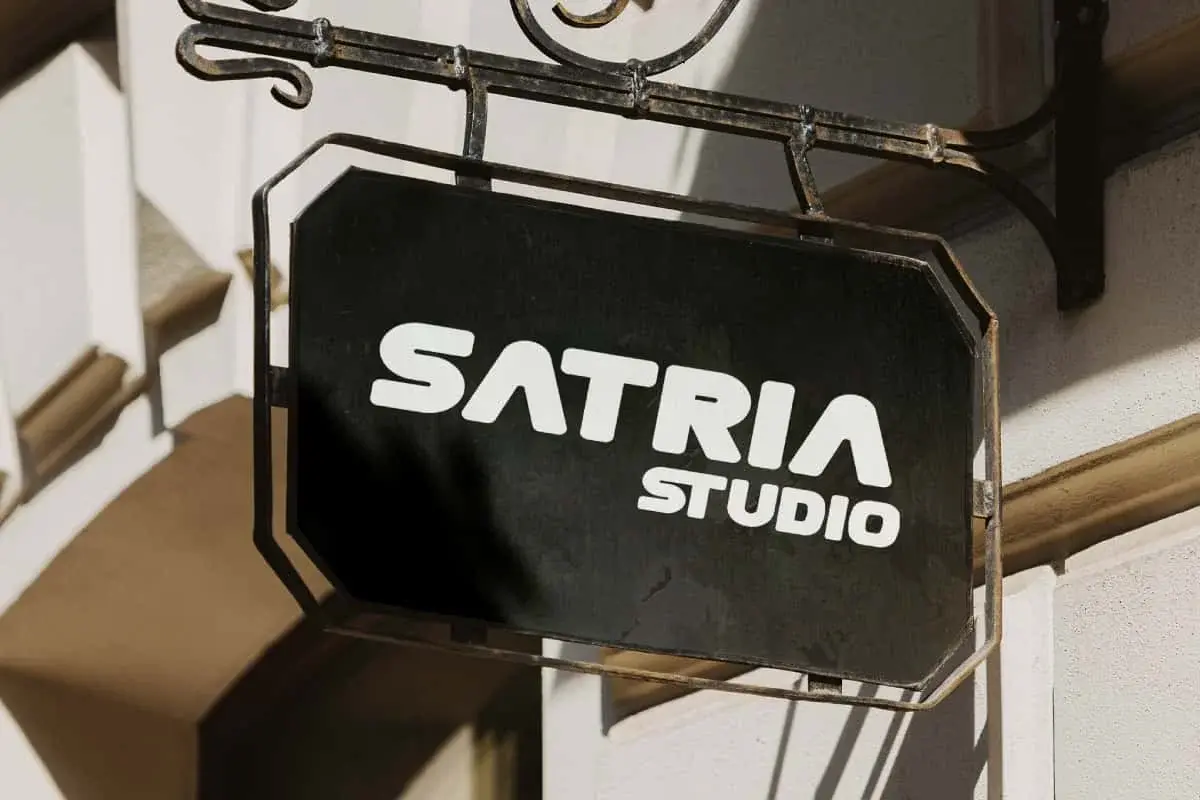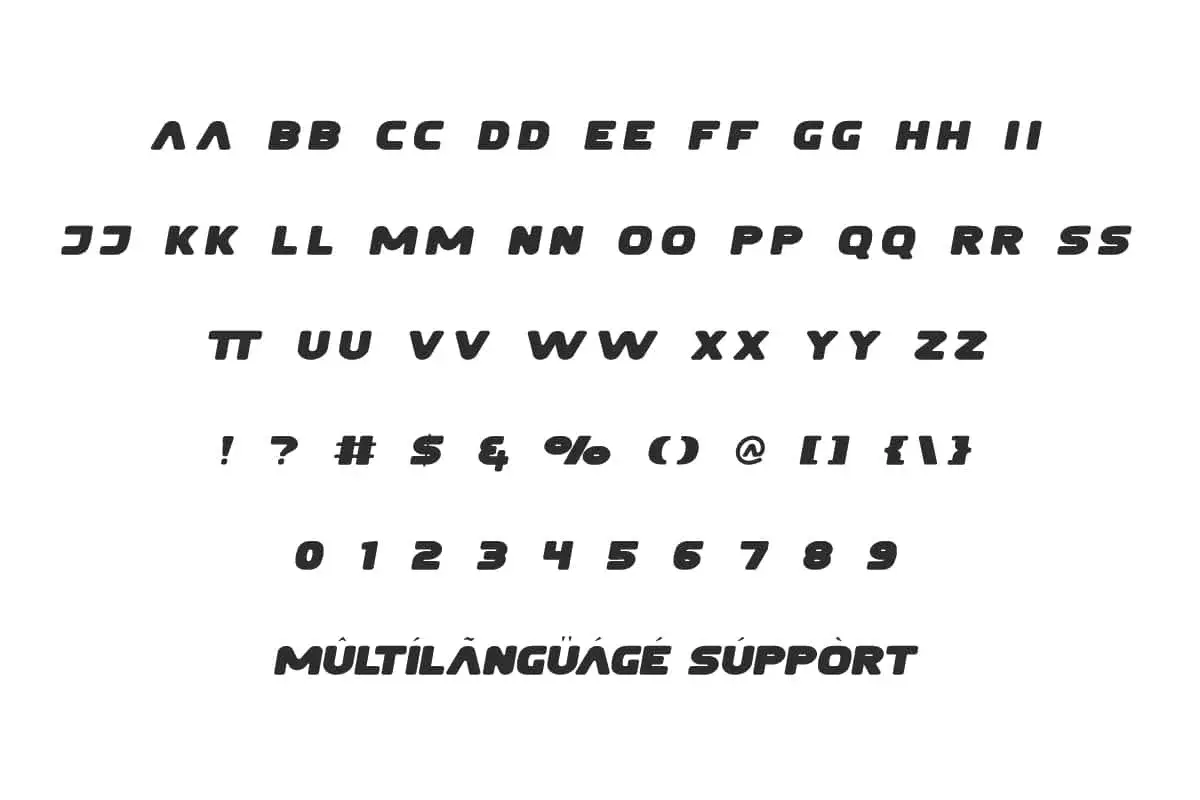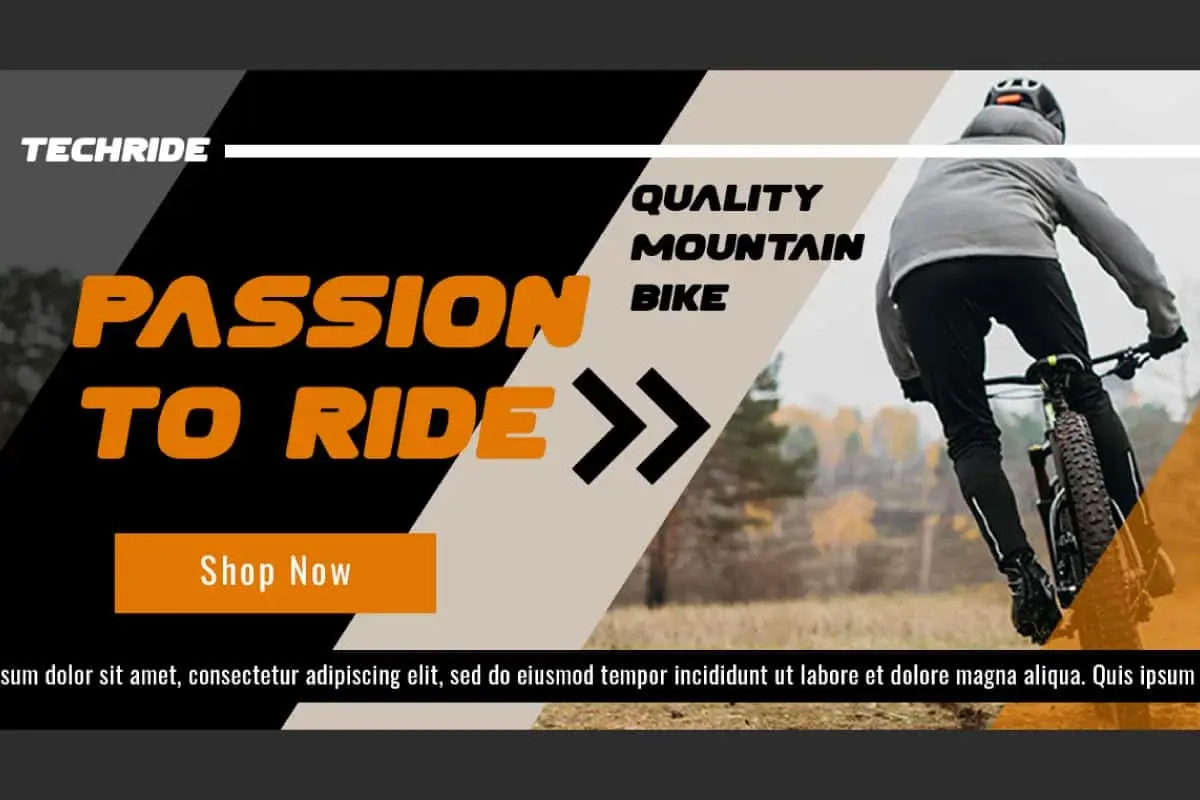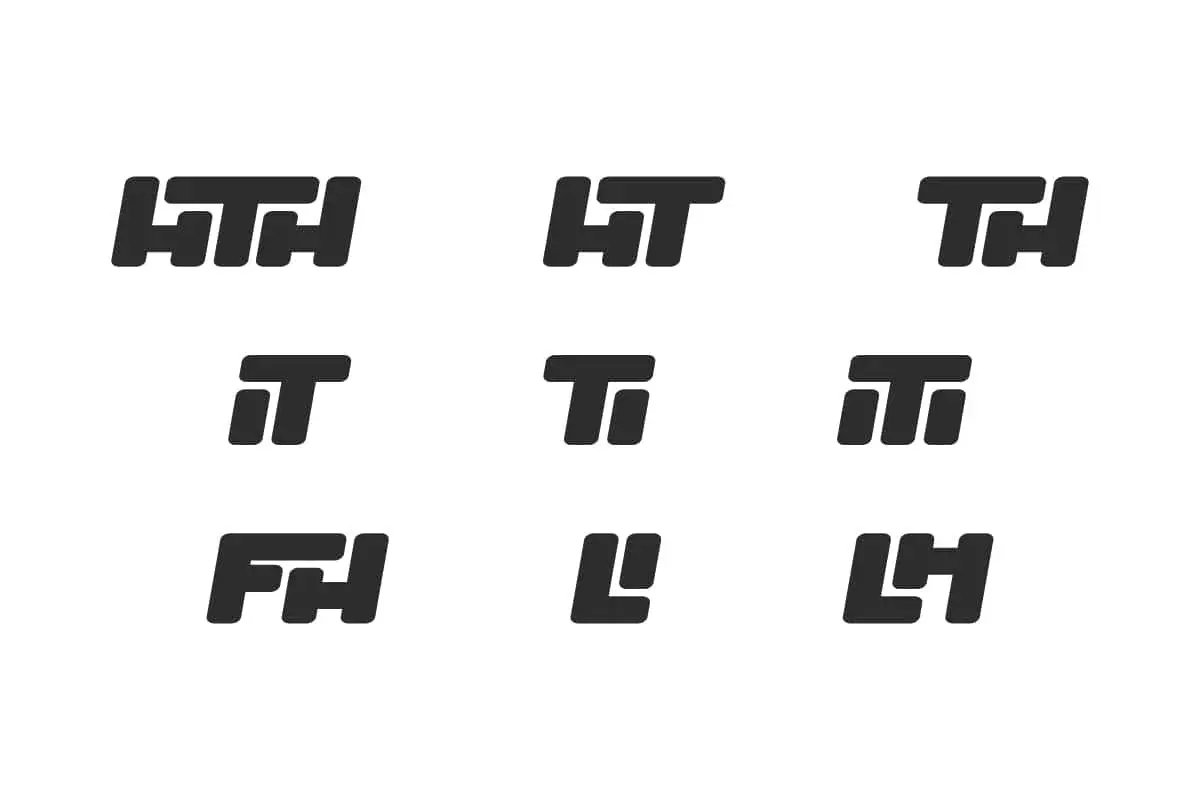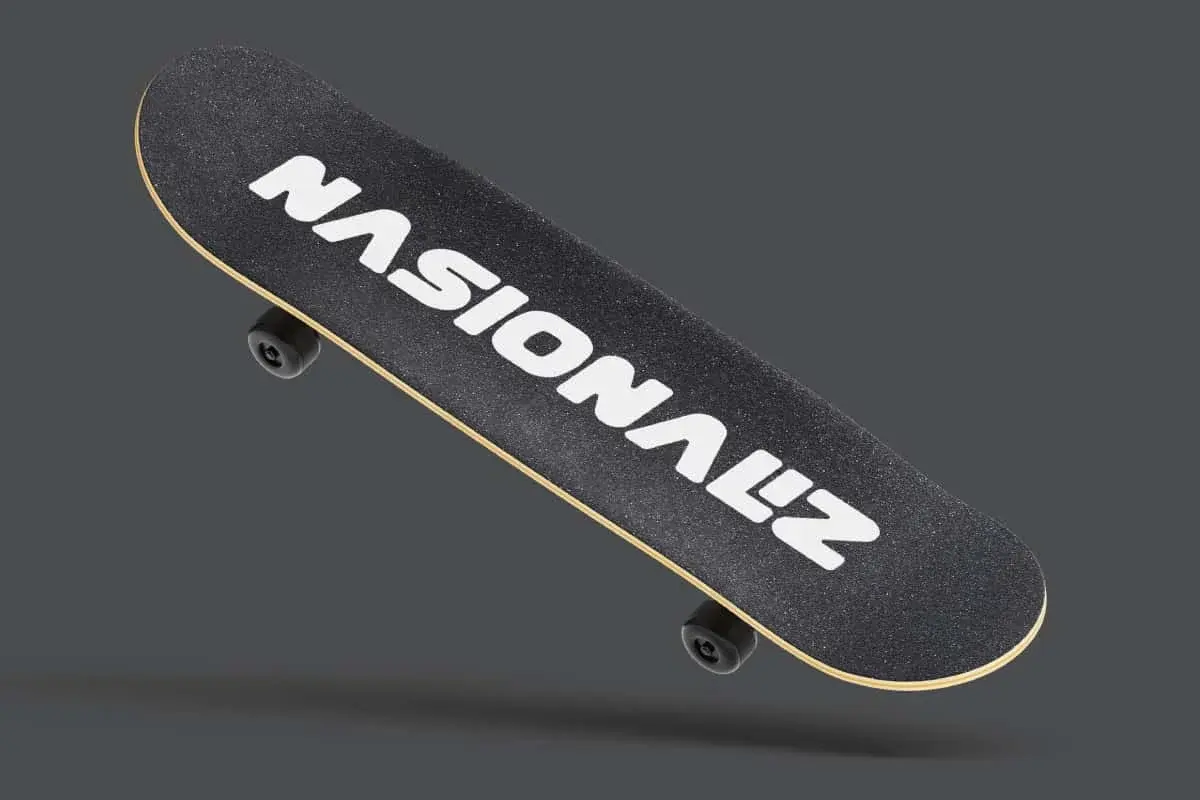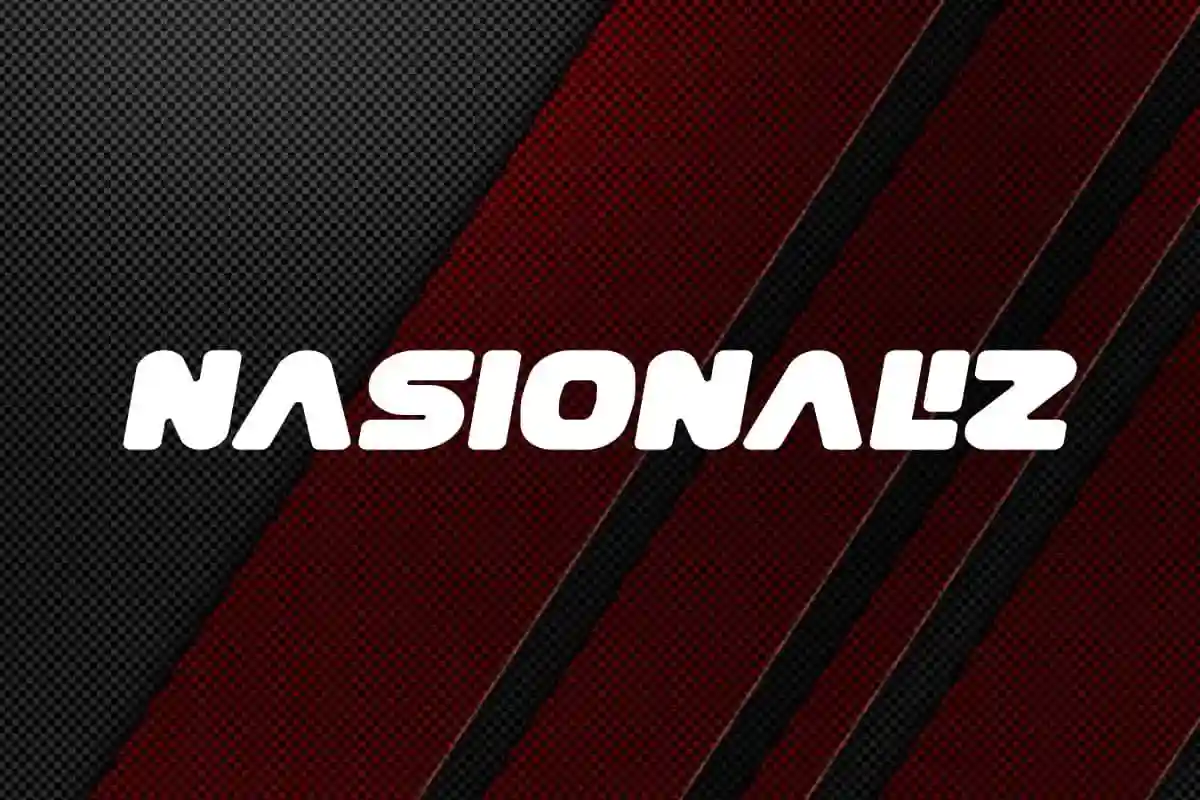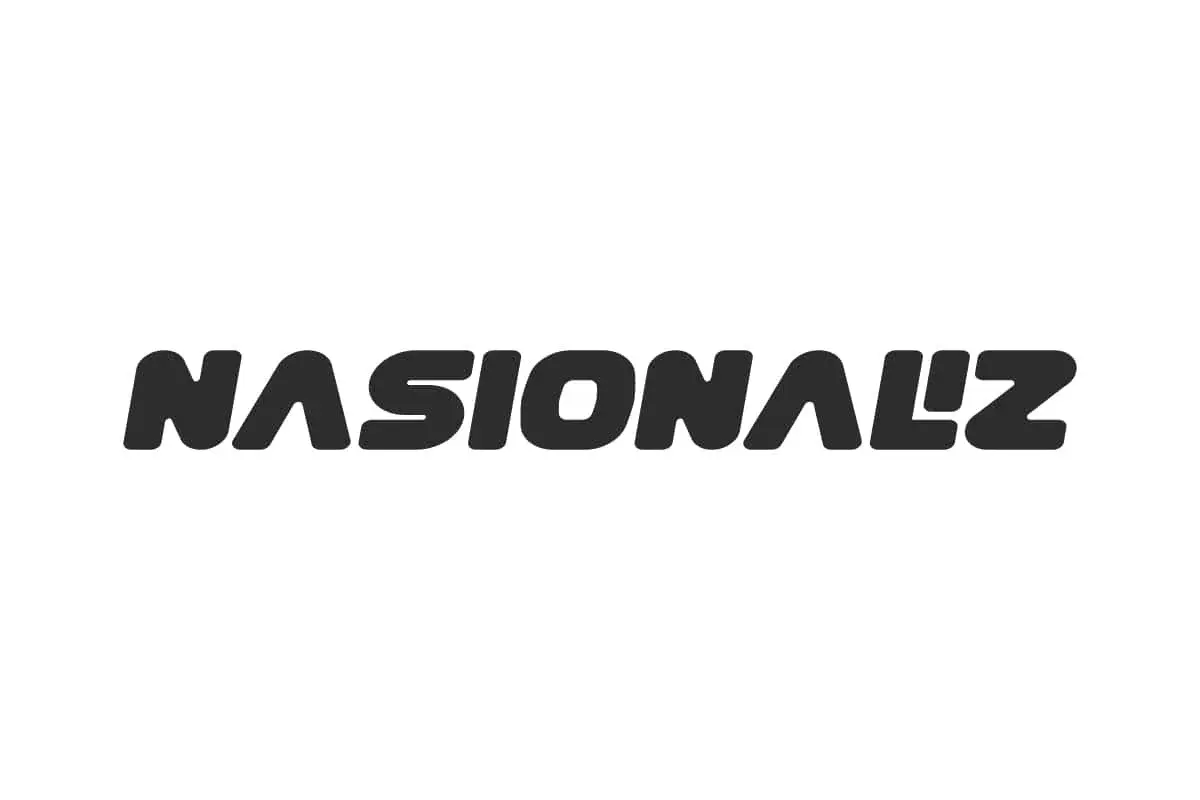
Nasionaliz Font
Nasionaliz Font is a fun and attractive strong bold font. Designed to stand out individually and blend seamlessly when combined.
Nasionaliz Font is  Display a fun and attractive strong bold typeface, suitable for all unique and semi-futuristic design works! This font can be used for anything such as banners, blogs, brochure, coves, flyer, headline, invitations, label tags, mockup, poster, printed materials, quotes, signage, skateboard, sticker, t-shirt designs, template, website, etc. Get creative!
Nasionaliz Font includes full set of Uppercase and Lowercase Basic Characters, Numbers, Punctuation, Symbols and Ligature. Made more of a typical rounded square shape and leaning towards a more interesting sci-fi theme. Perfect for advertising, clothing brand, creative studio, cycling, game developers, graphic design, motorsports, skateboarding, web designer, etc.